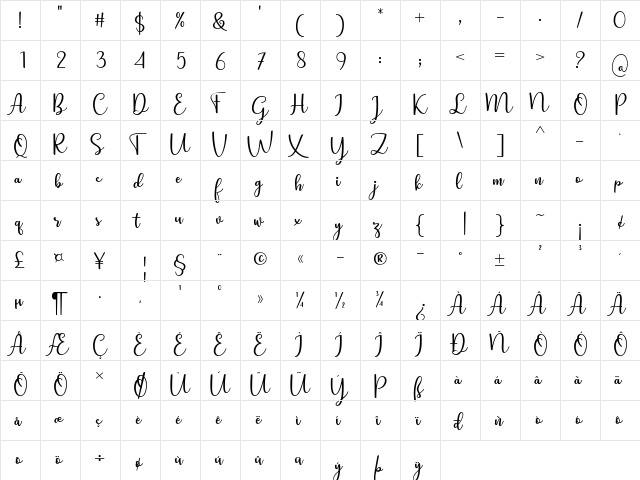
Still Loving Regular
| Foundry | 7NTypes |
| Designer | Andrian Dehasta; Situjuh Nazara |
Design Context for Still Loving Typeface
Still Loving is a composed and adaptable typeface that performs quietly and consistently across a wide range of design contexts.